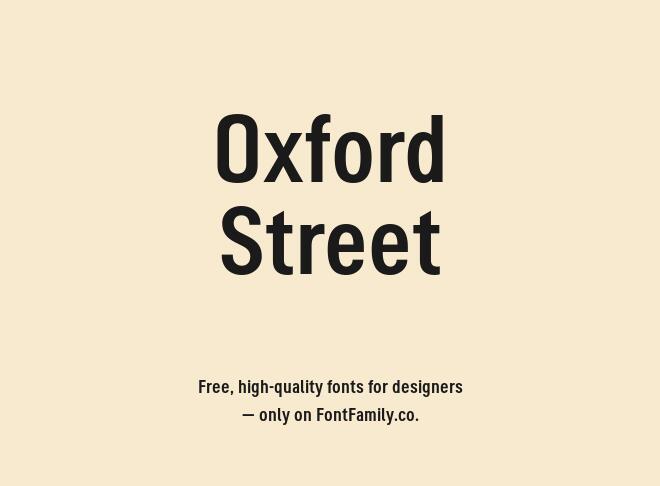
Oxford Street Font
The Oxford Street Font, crafted by Newman Foundry, is a classic yet modern display font that evokes the bustling energy of London's famous shopping district. With its distinct retro style, Oxford Street Font is reminiscent of vintage signage, making it perfect for branding, packaging, and title designs. Its Sans Serif letters are carefully shaped to provide a clear, readable text at all sizes. This font stands out in the crowd with its unique style, making it a go-to choice for designers aiming for a vintage yet modern aesthetic. The versatility of Oxford Street Font makes it a fantastic choice for both print and digital media. Its character set supports multiple languages, making it a global design tool.